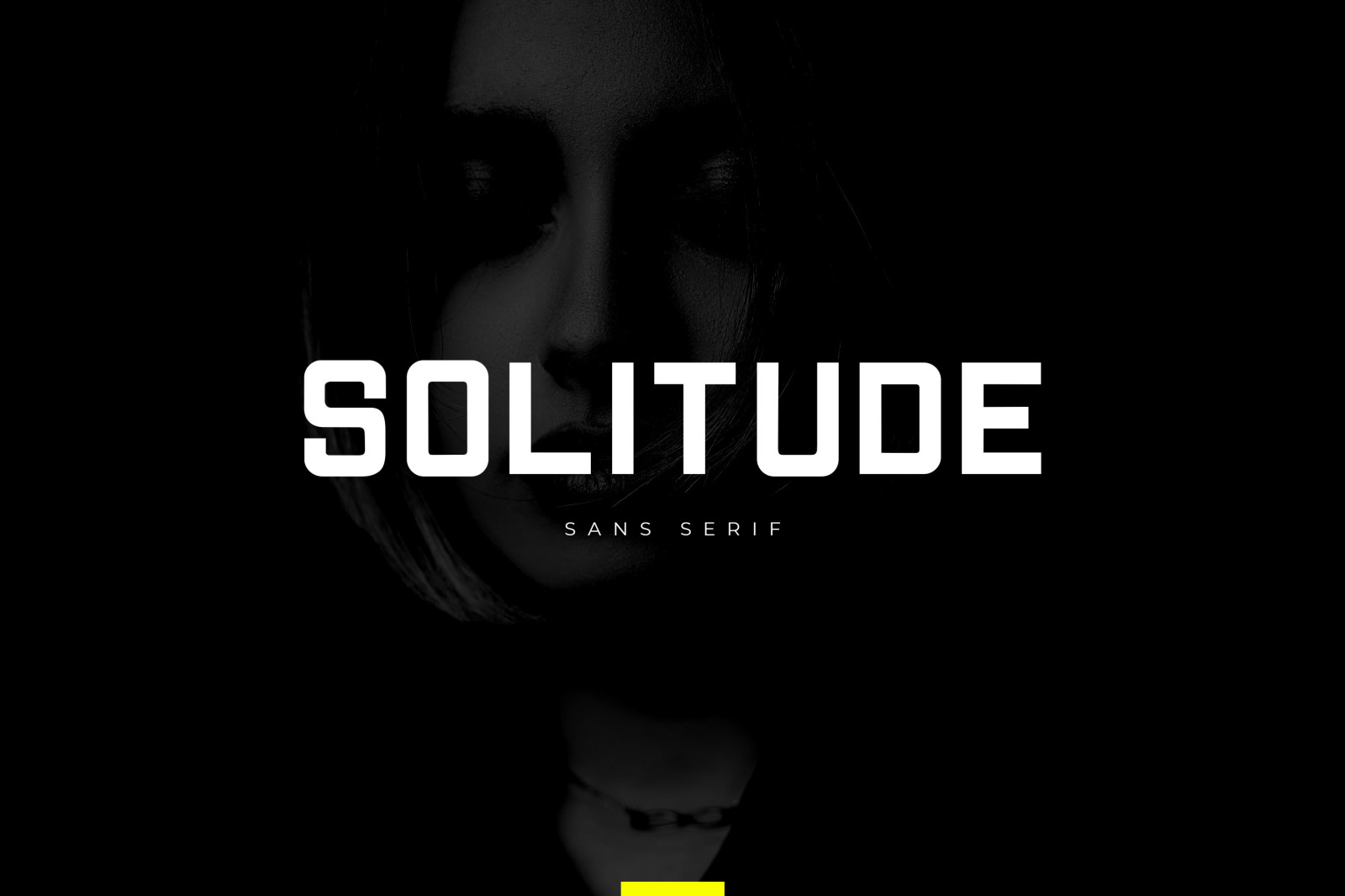
Solitude Font
Solitude is a thick lettered and simple sans serif font. It has a cool, neat and modern look that can be used for logos, branding, invitations, stationery, wedding designs, social media posts, and much more!